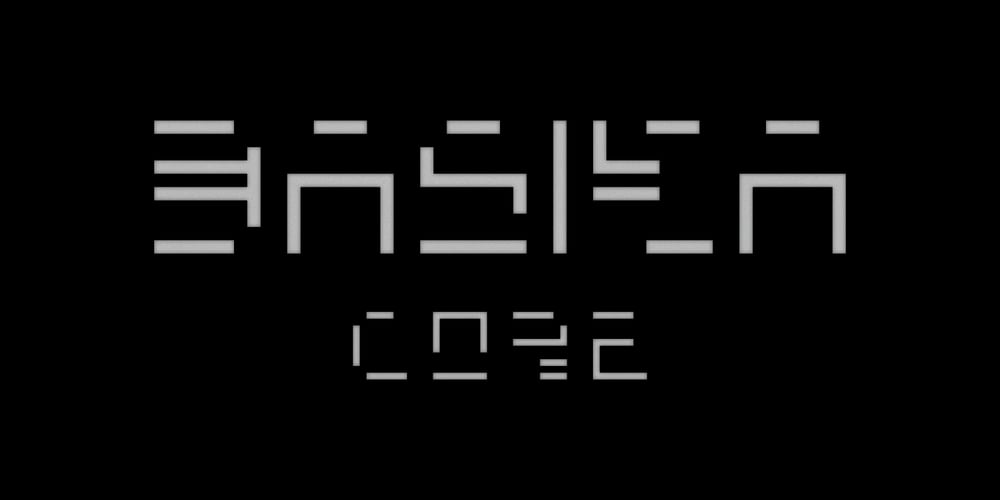
Basika Core Font Family was designed by Enrico Sogari and published by NOS. Basika Core contains 3 styles and family package options. The Core edition unleashes the true nature of Basika.A powerful communication means for designers and a bridge from the past into the future of experimental typeface design. Basika Core comes in three styles, it includes discretionary ligatures and stylistic alternates. Don’t hesitate to get in touch at nos.ink.Basika Core current version: 1.0 – released in May 2022.